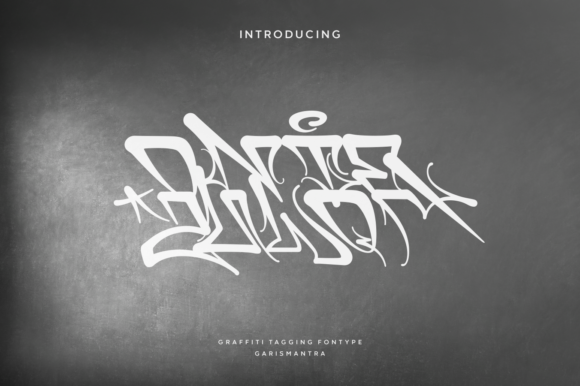
Behold, the Onif Font – Your Gateway to Limitless Creative Expression!
In a world clamoring for distinction, embrace the captivating allure of Onif, a graffiti-styled display font that propels your designs into the stratosphere of visual impact. Unleash your creativity with this futuristic, slightly creepy font and watch your projects transcend the ordinary, leaving an indelible mark on the minds of your audience.
The Onif Font is the perfect tool to make your ideas burst off the page and scream for attention. Whether you're a seasoned designer or just starting, this font is your secret weapon for creating designs that are both captivating and memorable. It's the perfect choice for amplifying your designs, creating logos that demand attention, and crafting advertisements that leave a lasting impression.
With Onif, the possibilities are as vast as your imagination. Design t-shirts that speak to the rebellious spirit, sportswear that exudes energy, and clothing that embodies urban culture. Let your designs dance to the beat of creativity, and watch as Onif transforms them into masterpieces of visual expression.